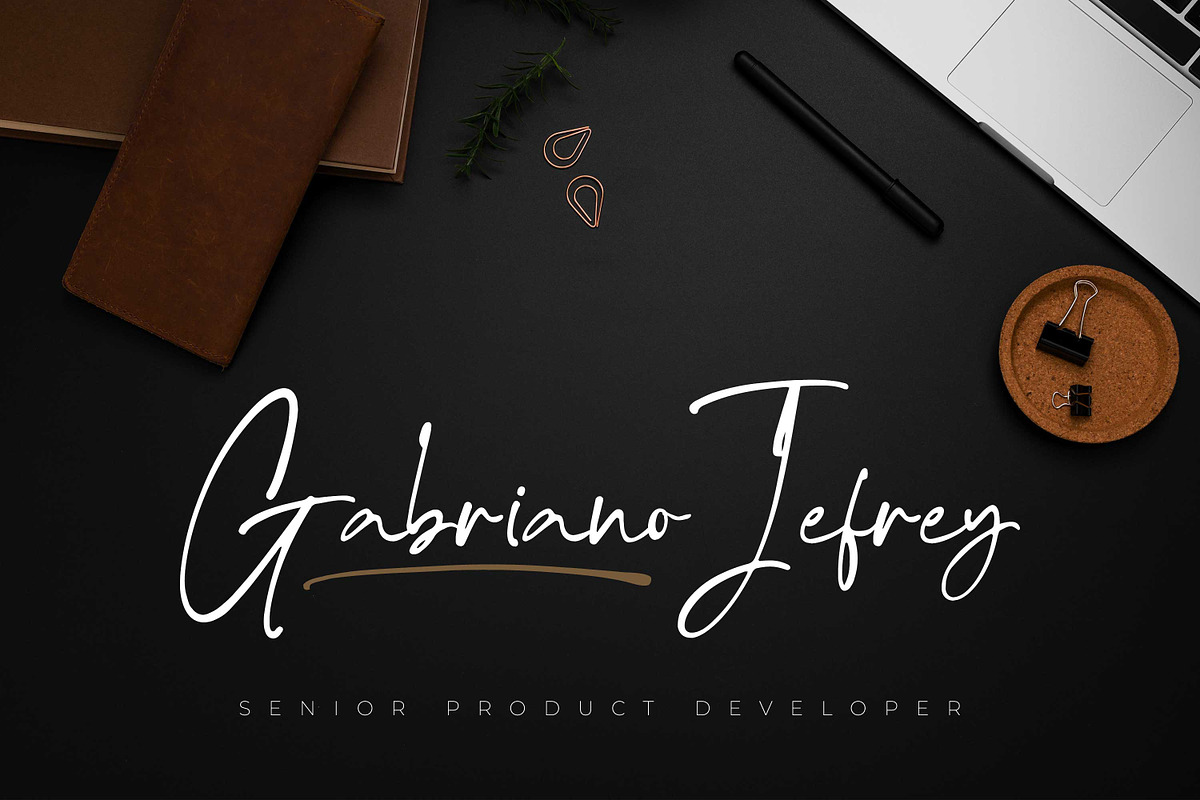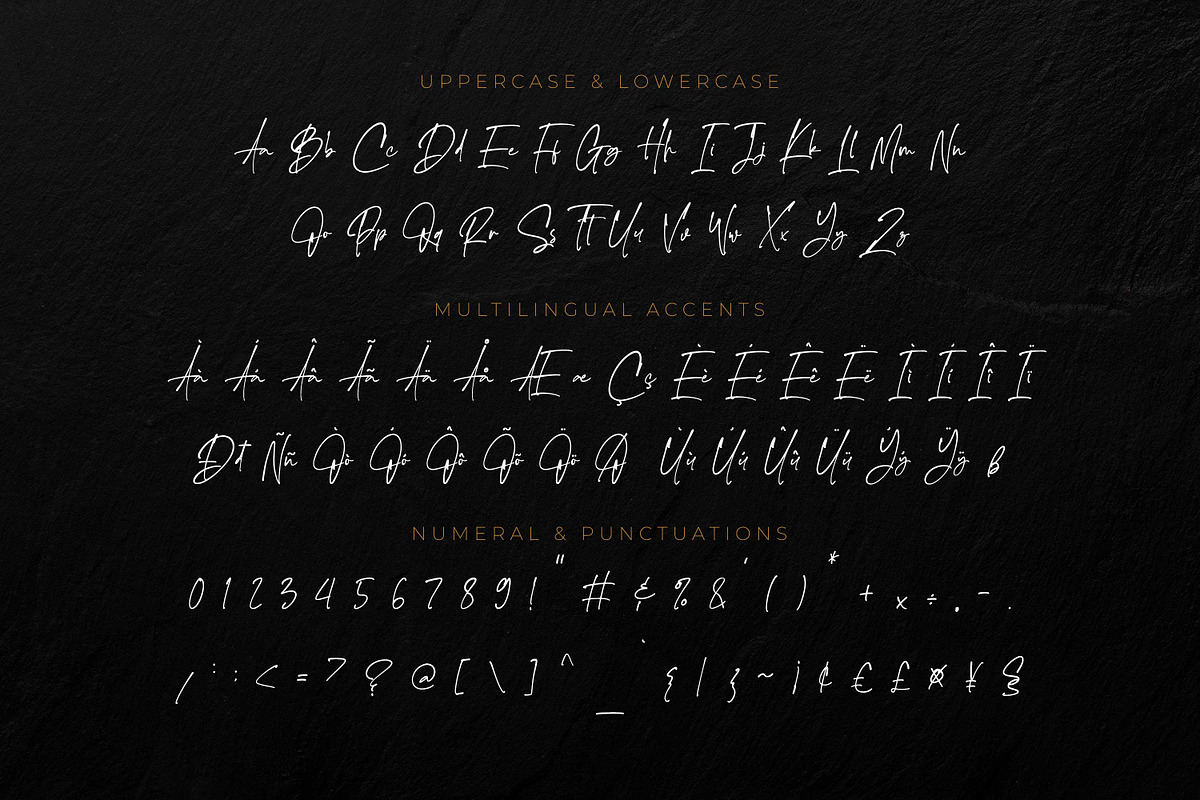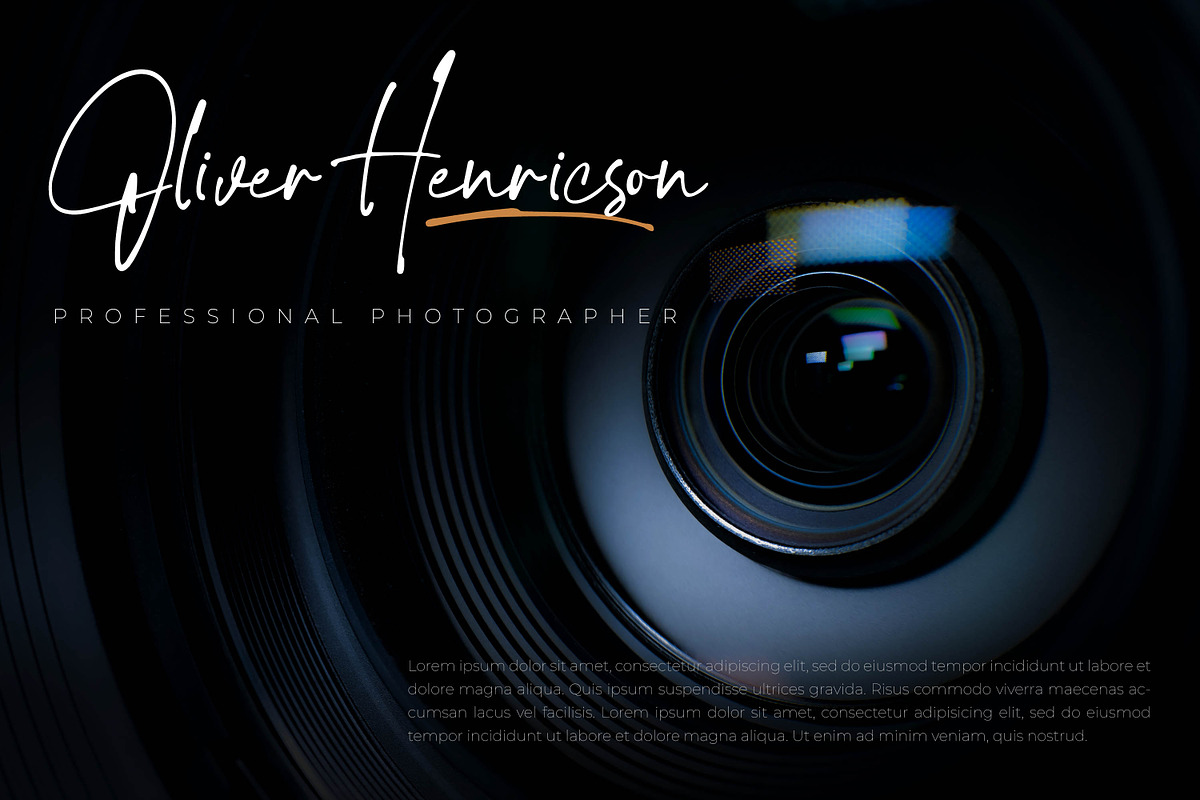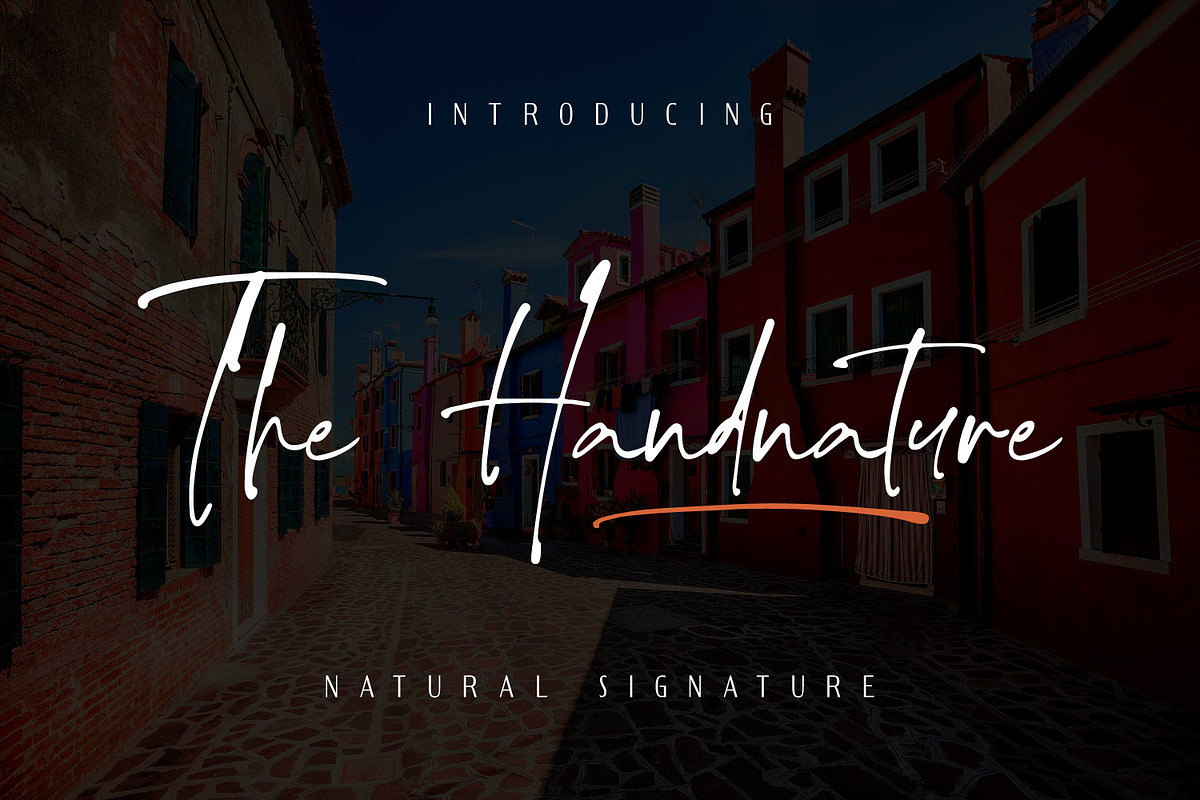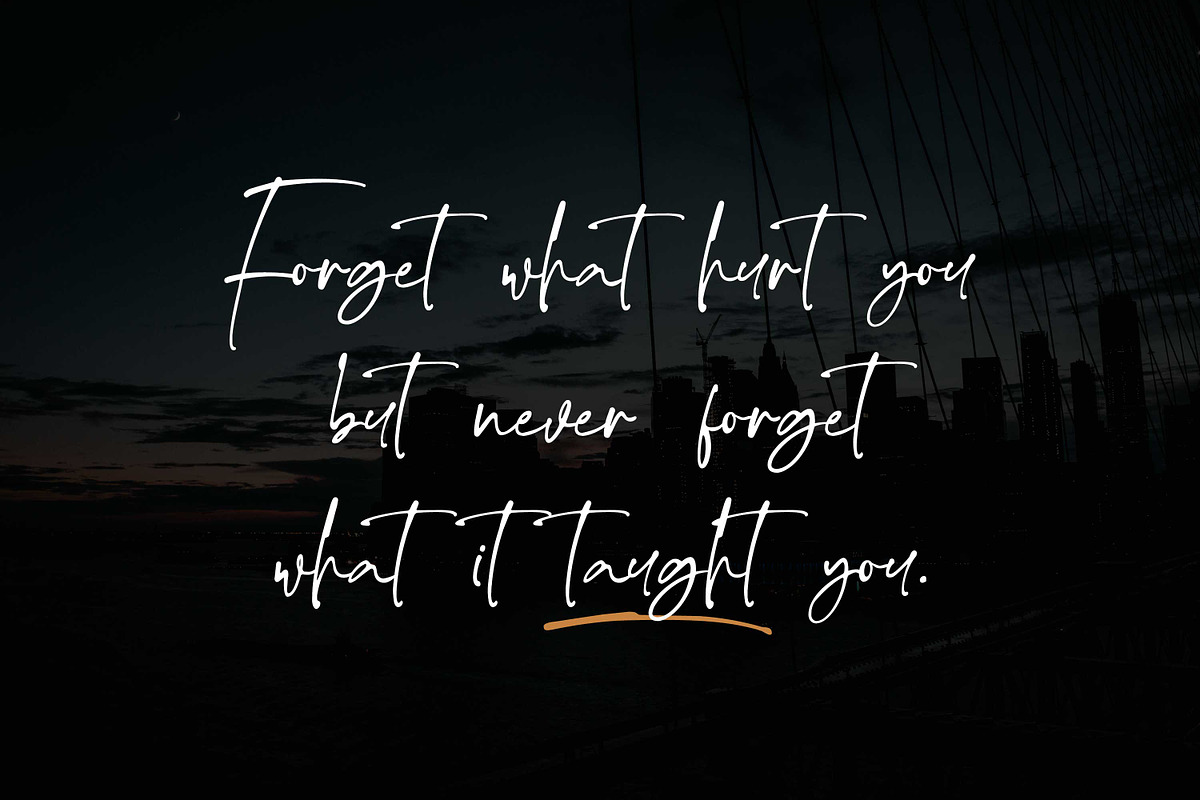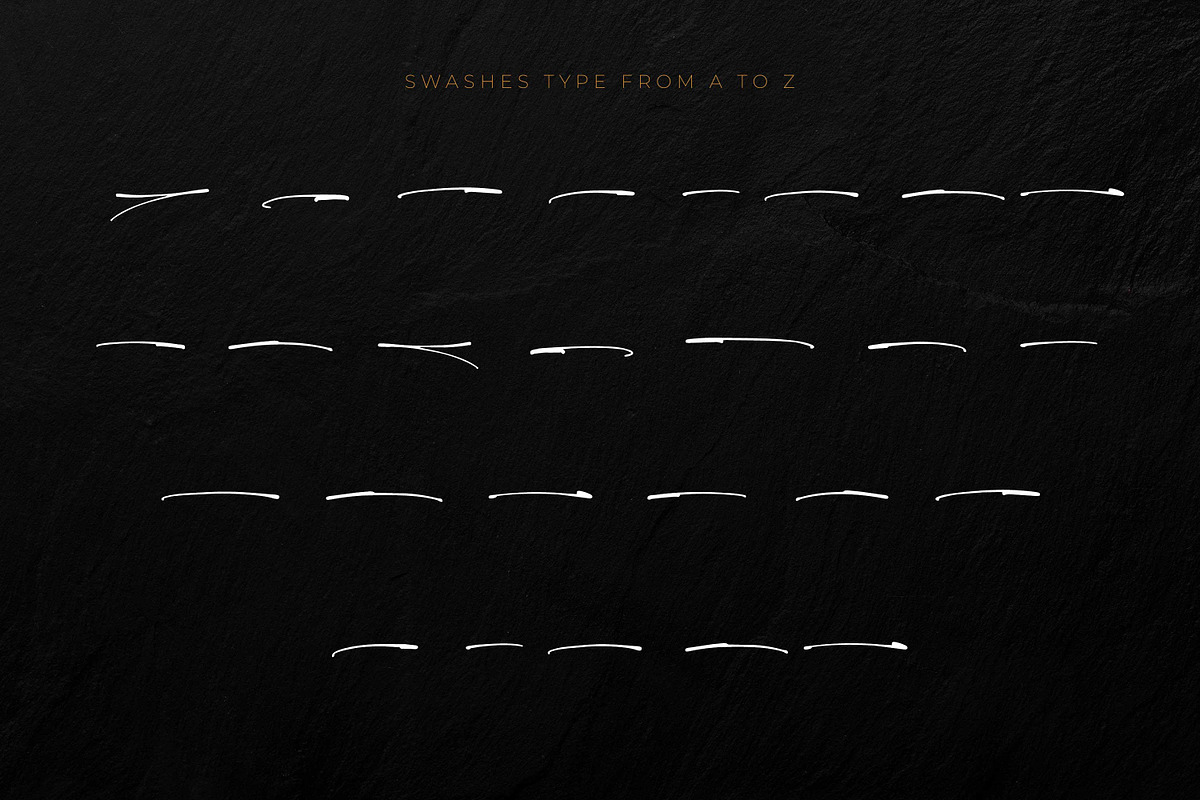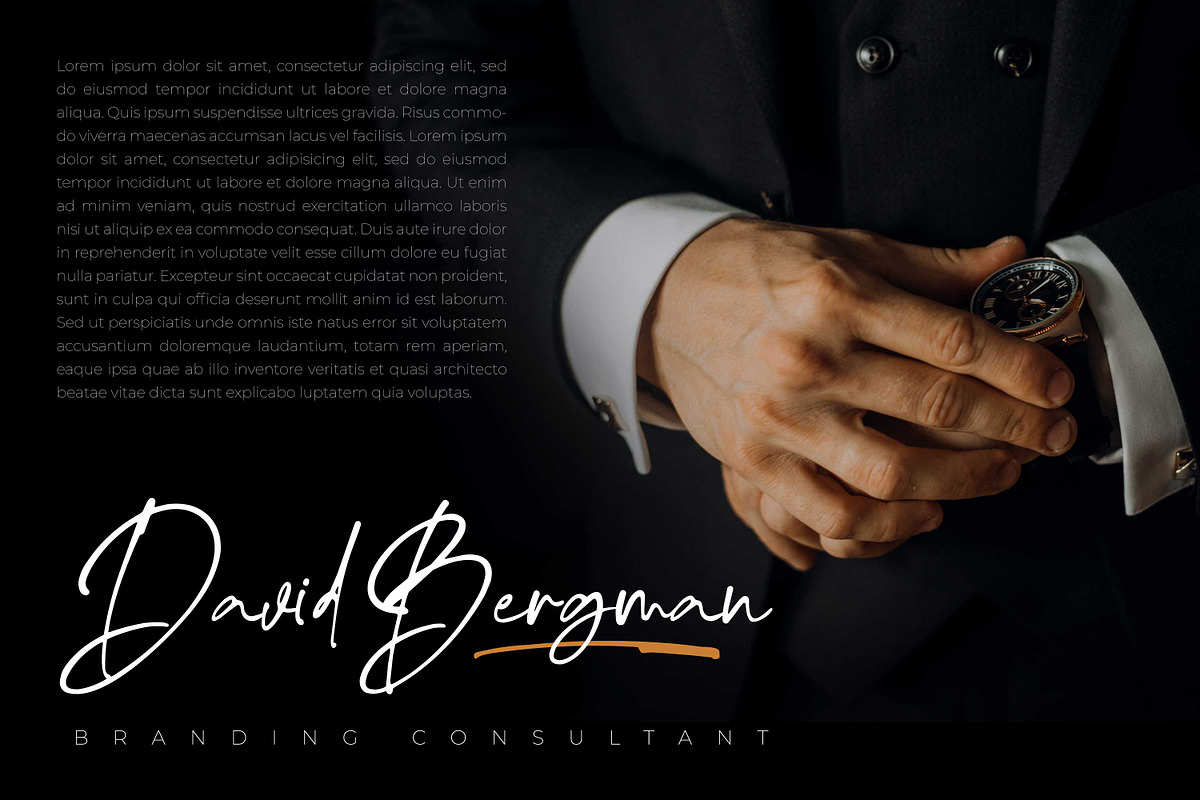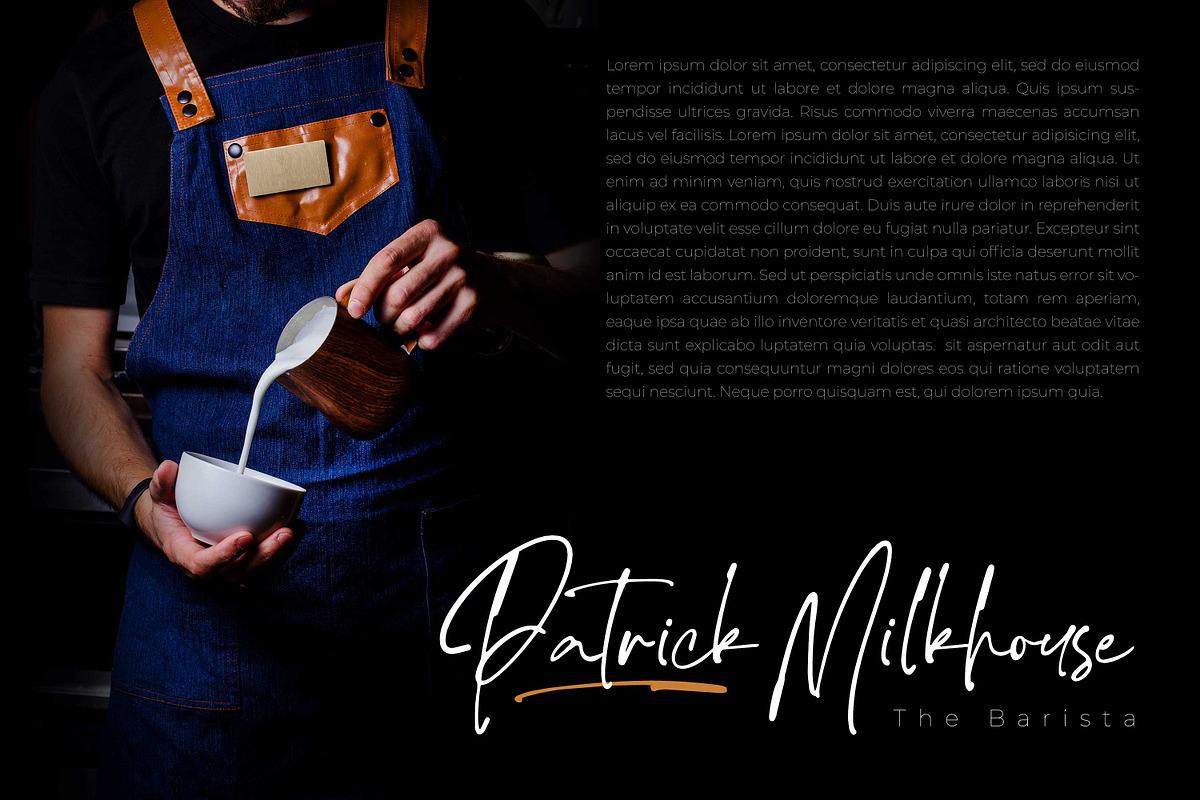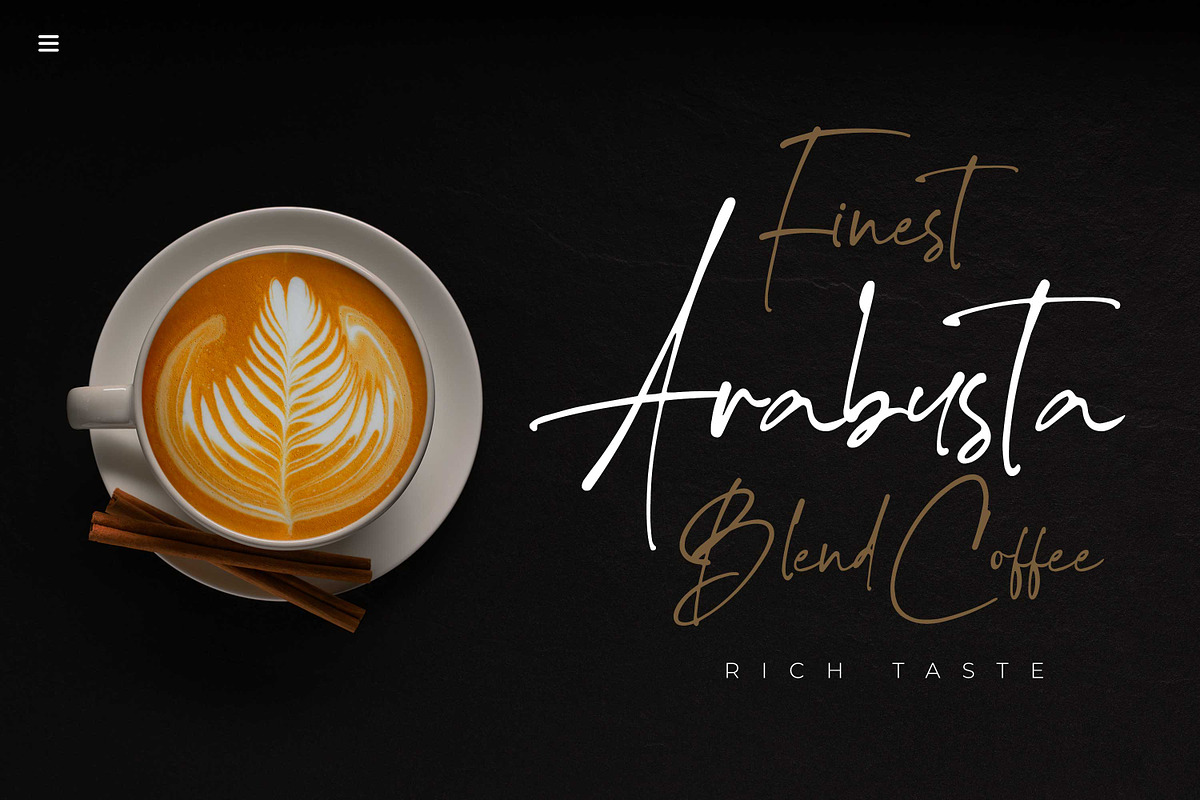
The handnature - Natural Signature
The handnature - Natural Signature and classy style, this font is great for your creative projects such as watermark on photography, and perfect for logos & branding, photography, invitation, watermark, advertisements, product designs, stationery, wedding designs,label, product packaging, special events or anything that need handwritting taste.